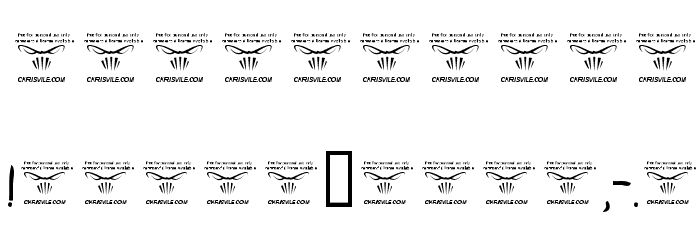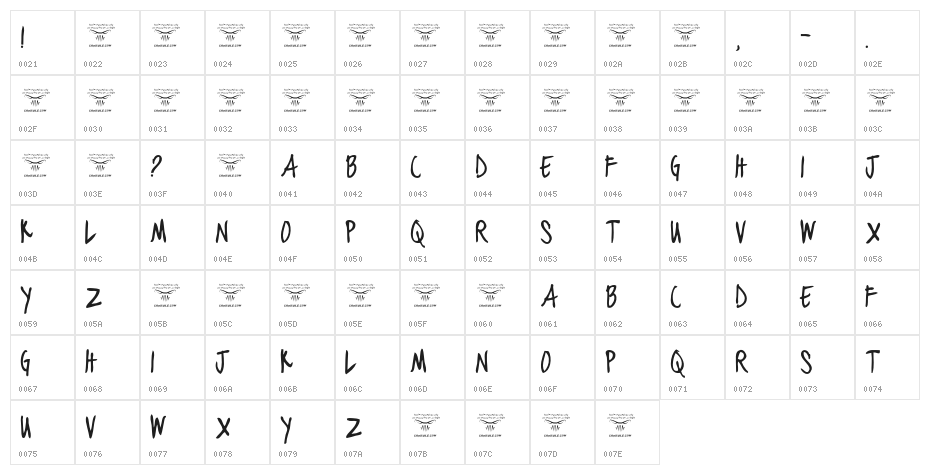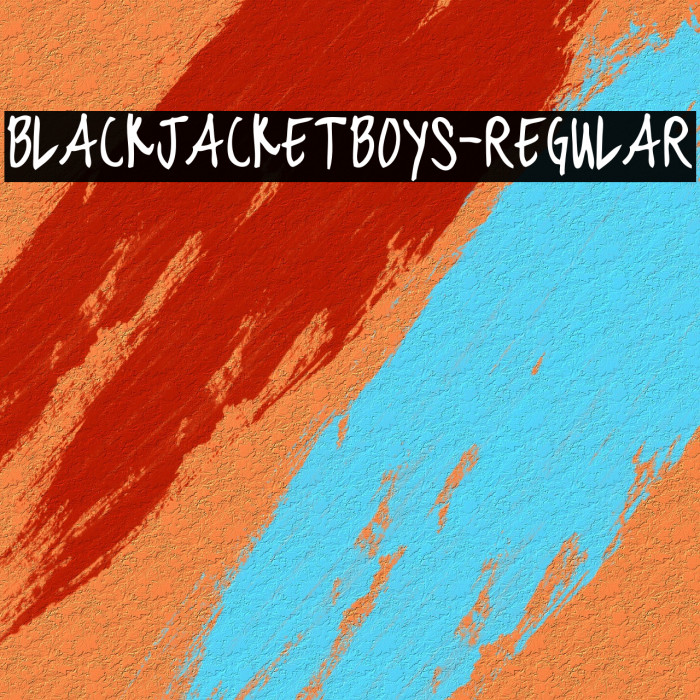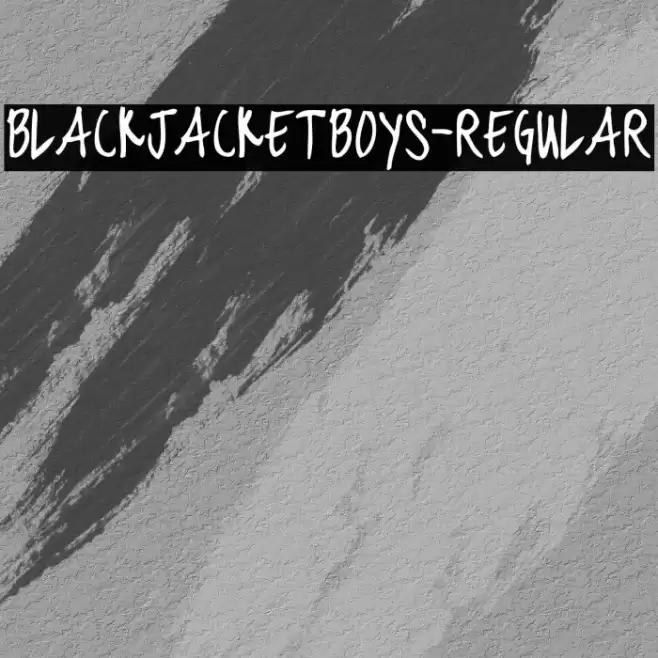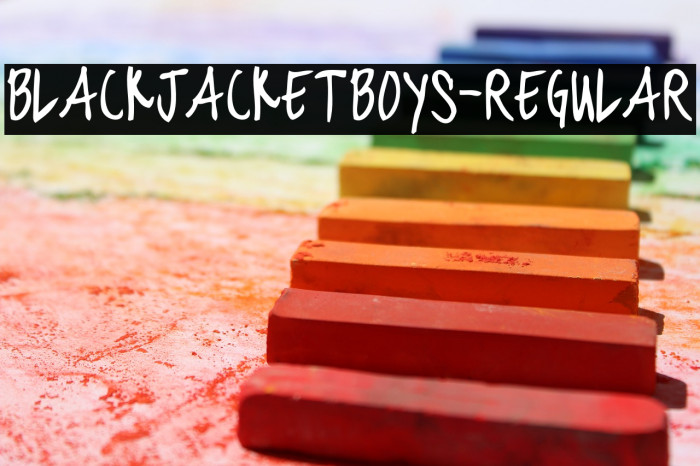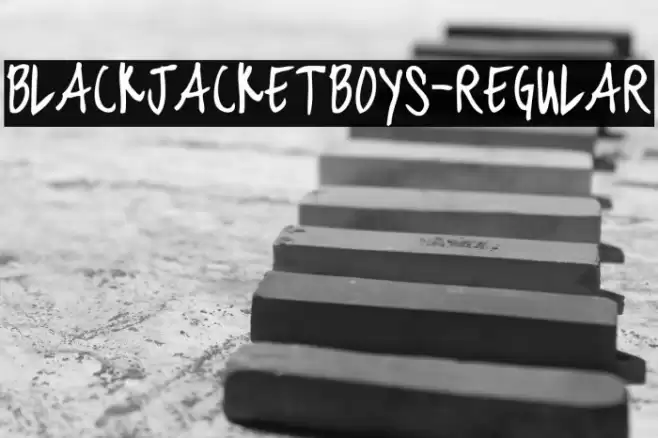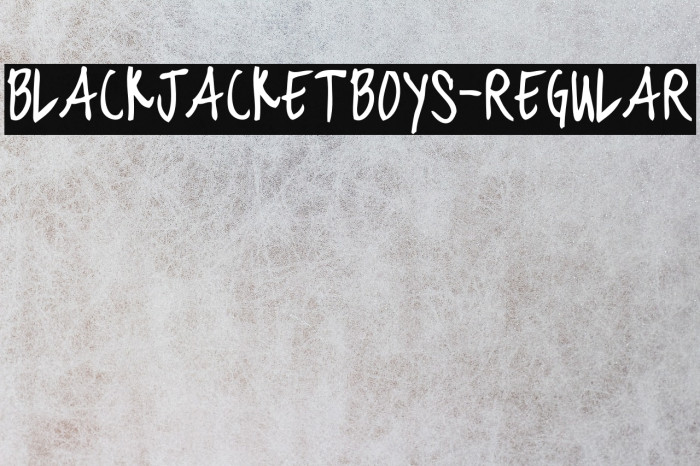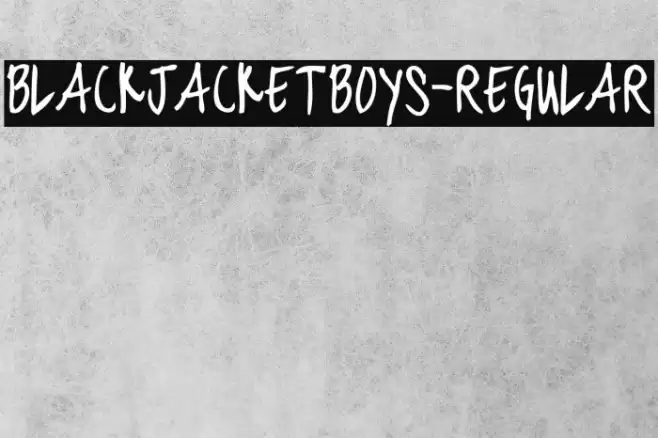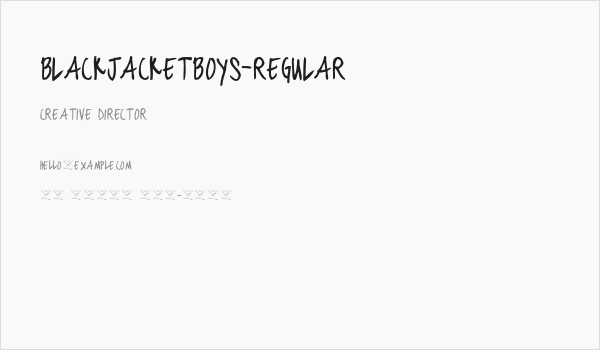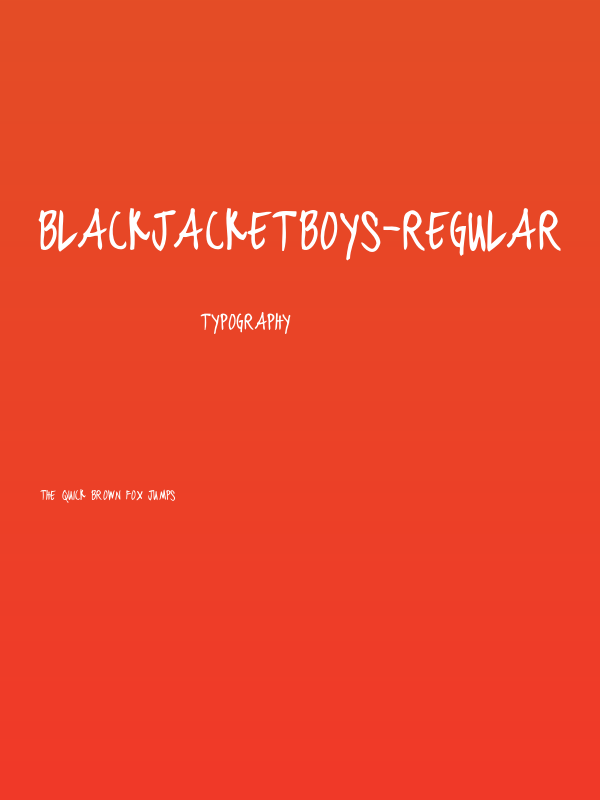
blackjacketboys-Regular Font
blackjacketboys-Regular Description
This font exhibits a dynamic and energetic style, characterized by its handwritten appearance. The letters are slightly slanted, giving a sense of motion and fluidity. The strokes vary in thickness, adding a lively and informal touch. The uppercase and lowercase letters maintain a consistent style, with rounded edges and a playful feel. The numerals and special characters align with the overall aesthetic, making it suitable for creative and casual designs.
| Overall Style | Casual, Energetic |
| Proposed Projects | Ideal for branding, posters, invitations, and any project requiring a personal, informal touch. |